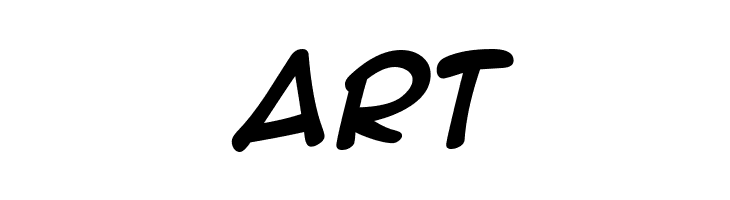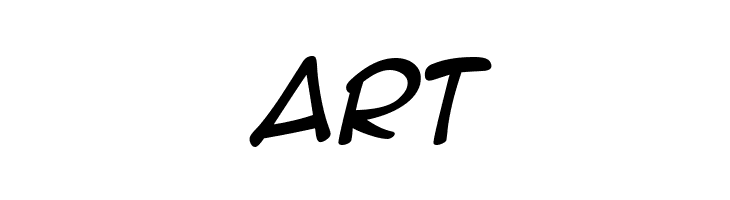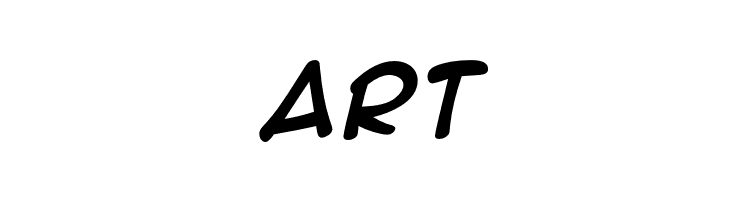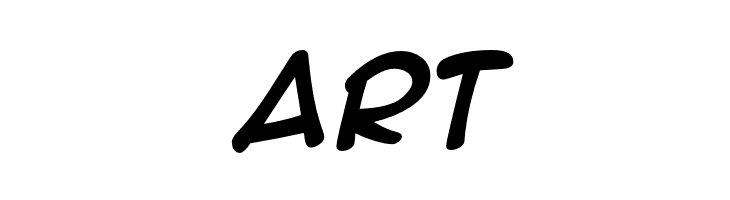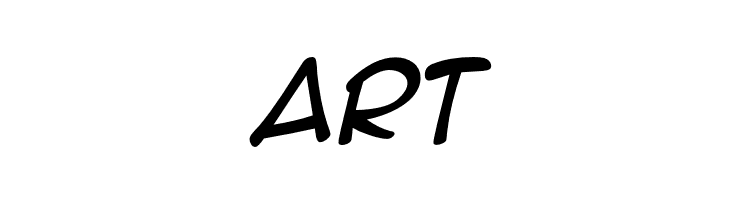
• CorneredBirds
A decorative dingbat font of abstract bird silhouettes.
• Corps-Script
A whimsical, hand-drawn font with curly embellishments and dynamic strokes.
• Corps-Script-Shadow
A whimsical, shadowed font with curly serifs and playful design.
• Correy's
An artistic, elongated font with narrow letterforms and high contrast.
• CorrodetInitials
An ornate, decorative font with intricate Victorian-style detailing.
• CortoMaltese
• Costura Bold
• Costura DemiBold
• Costura Light
• Courtney Dorkling
A playful, handwritten font with a casual and dynamic style.
• Covenant/Forerunner Bold
• Coventry Garden NF
A decorative serif font with intricate swirls and classic elegance.
• CoventryGardenNF
An ornate and elegant serif font with decorative uppercase letters.
• CowBats
Artistic cow illustrations replace traditional characters, offering a whimsical design element.
• Cranberry Blues
• crazy love
• Crazysk8
• CrazyWeather
Cartoonish dingbat font with weather-themed illustrations.
• Creepsville
A spooky, dripping font ideal for horror themes.
• Crial
A playful, 3D outline font with a hand-drawn, comic book style.
• Crialblack
A bold, playful font with a three-dimensional shadow effect.
• Crom
• Crooked